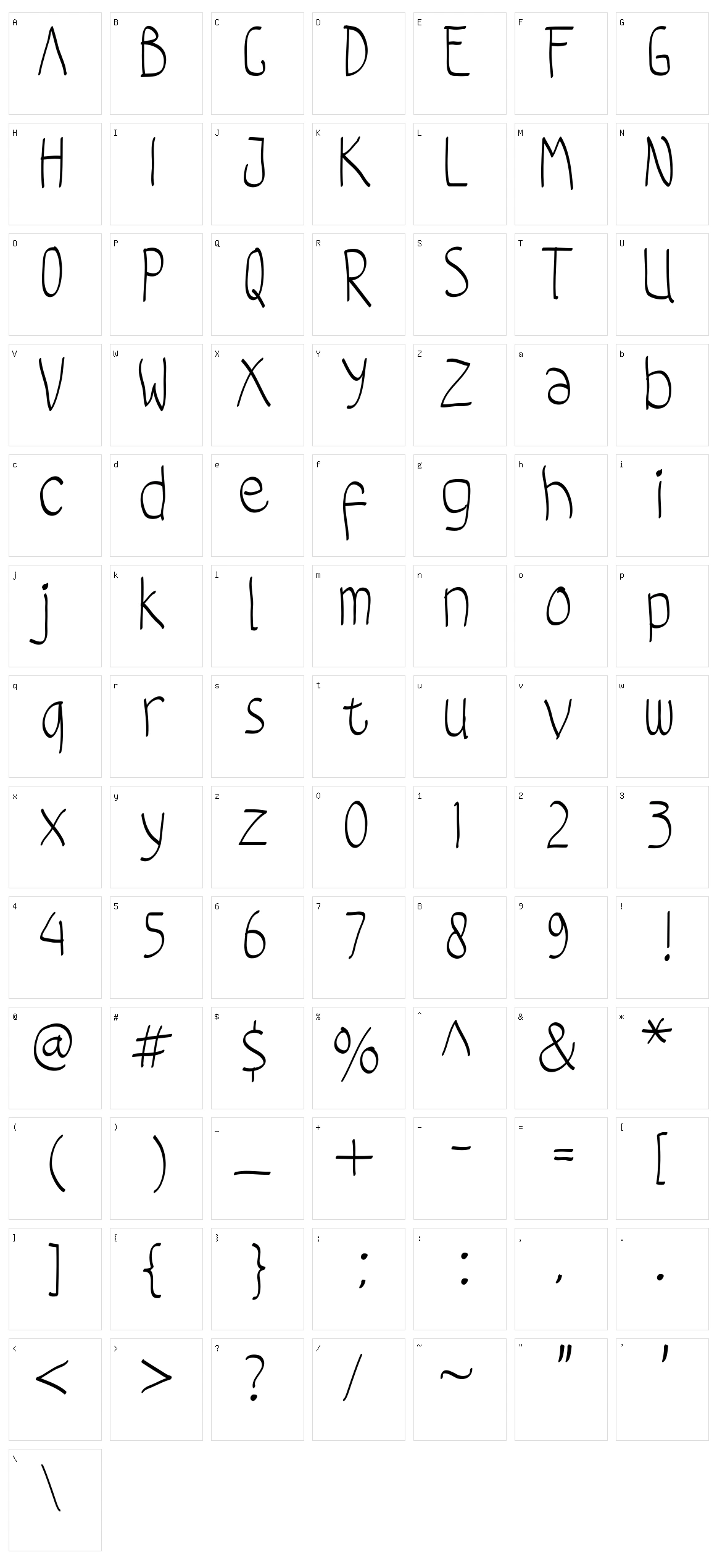
The free font Coloroyd Bastard is carefully designed by Roy Bayu Putra, showcasing a thoughtful balance of creativity and usability and falls under the Script font style. When you download the ZIP file, it contains only 38.88 KB of font files, making it lightweight and quick to download. Please review the license details below to understand permitted usage and distribution rights. If license information is not available, we recommend using this font for personal projects only or contacting the author directly for commercial usage permissions.